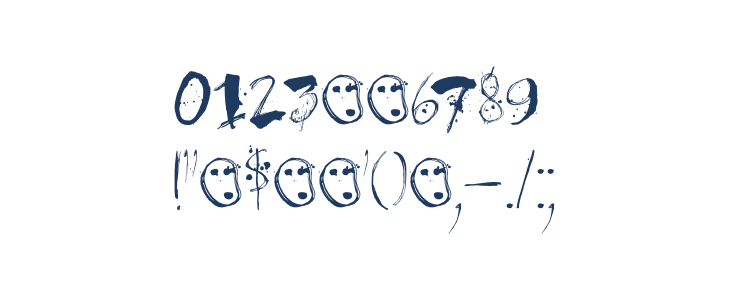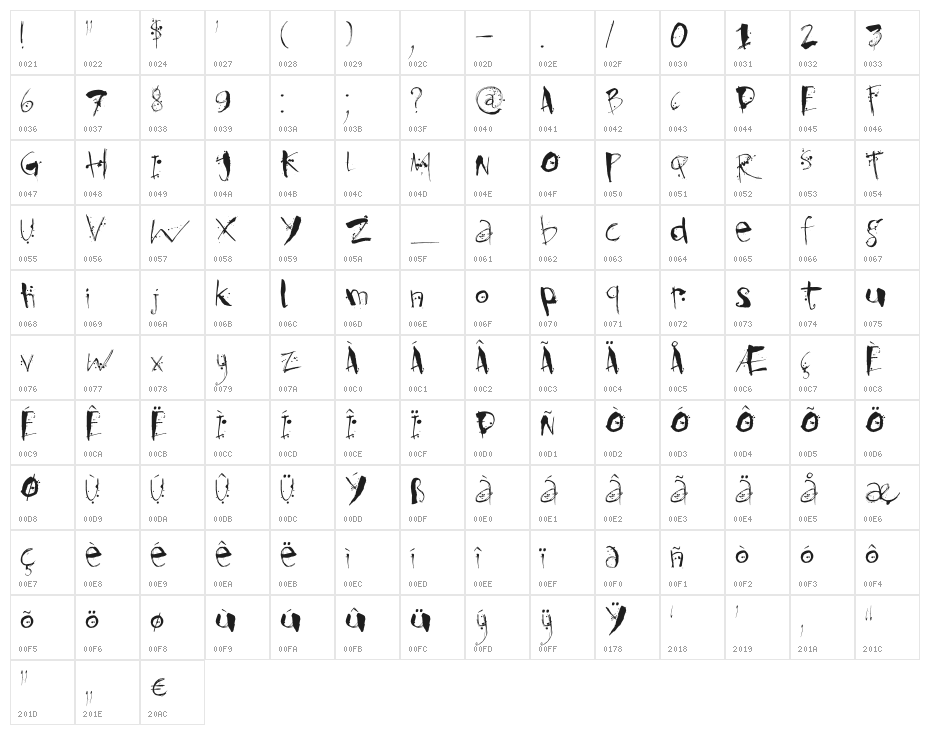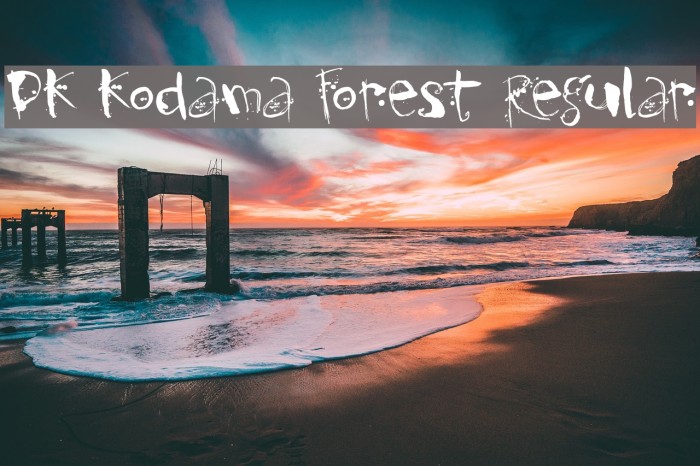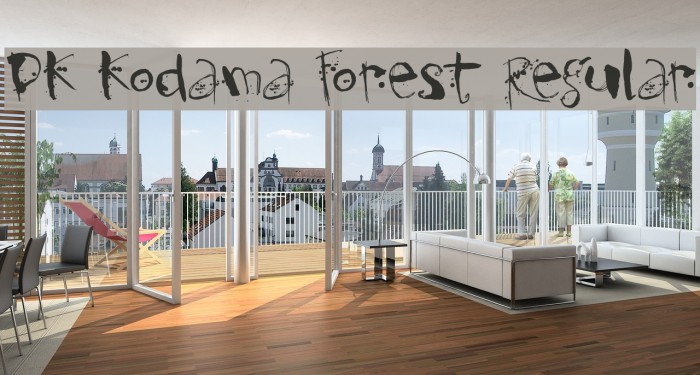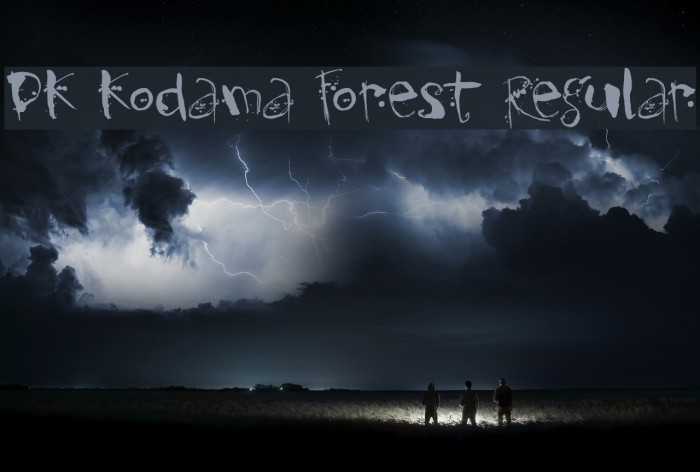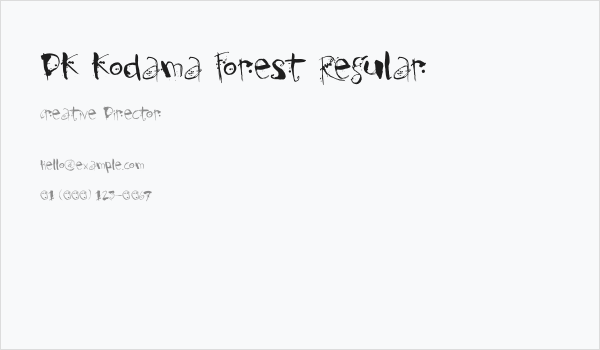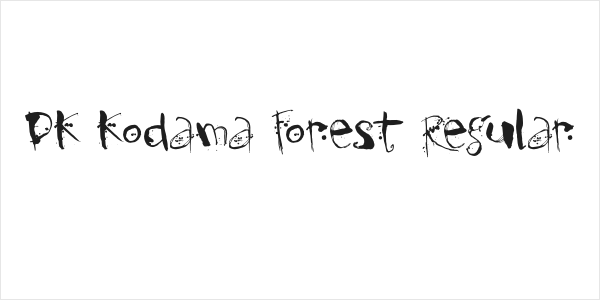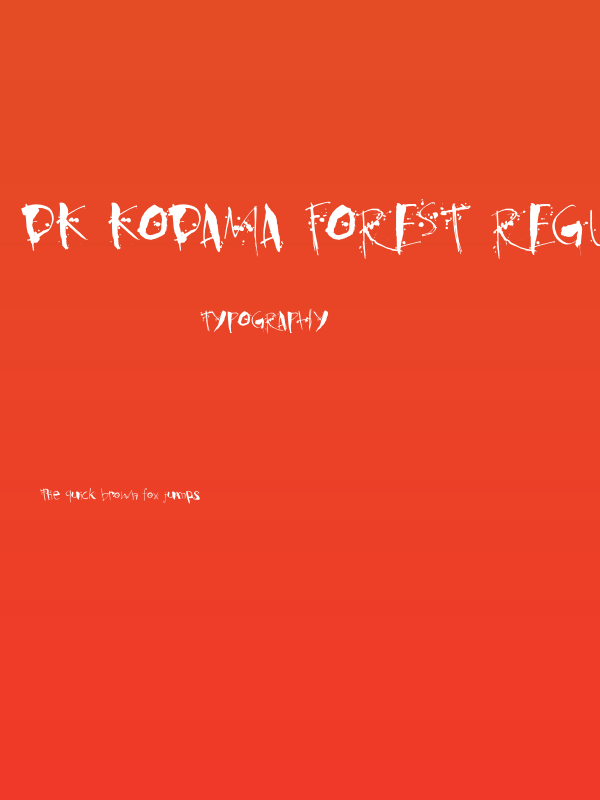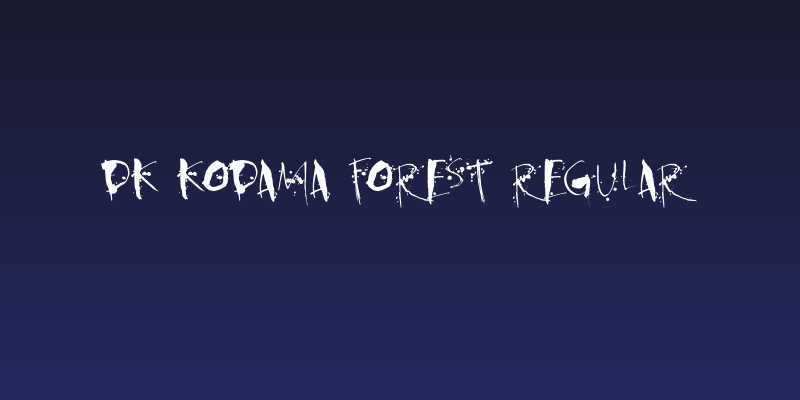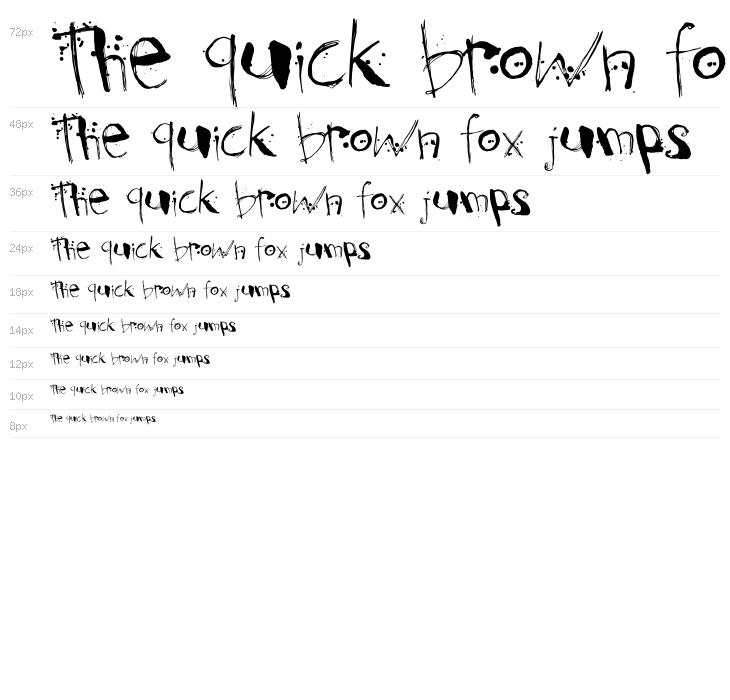
DK Kodama Forest Regular Font
DK Kodama Forest Regular Description
This font features a highly expressive and artistic style, characterized by its irregular, hand-drawn appearance. The letters are adorned with splatters and ink blots, giving it a raw and organic feel. The strokes vary in thickness, adding to its dynamic and energetic look. Each character seems to have its own personality, with unique quirks and details that make it stand out. The numbers and special characters follow the same artistic theme, maintaining consistency throughout the set. This font is perfect for projects that require a bold and unconventional aesthetic.